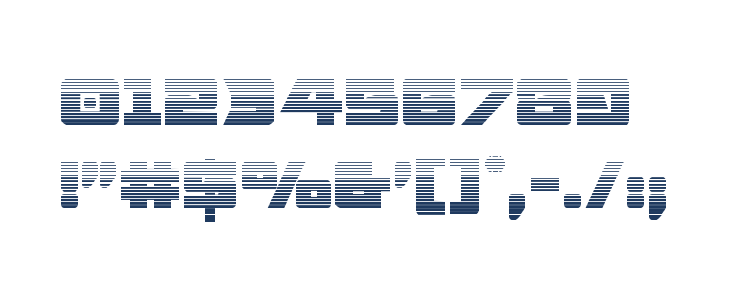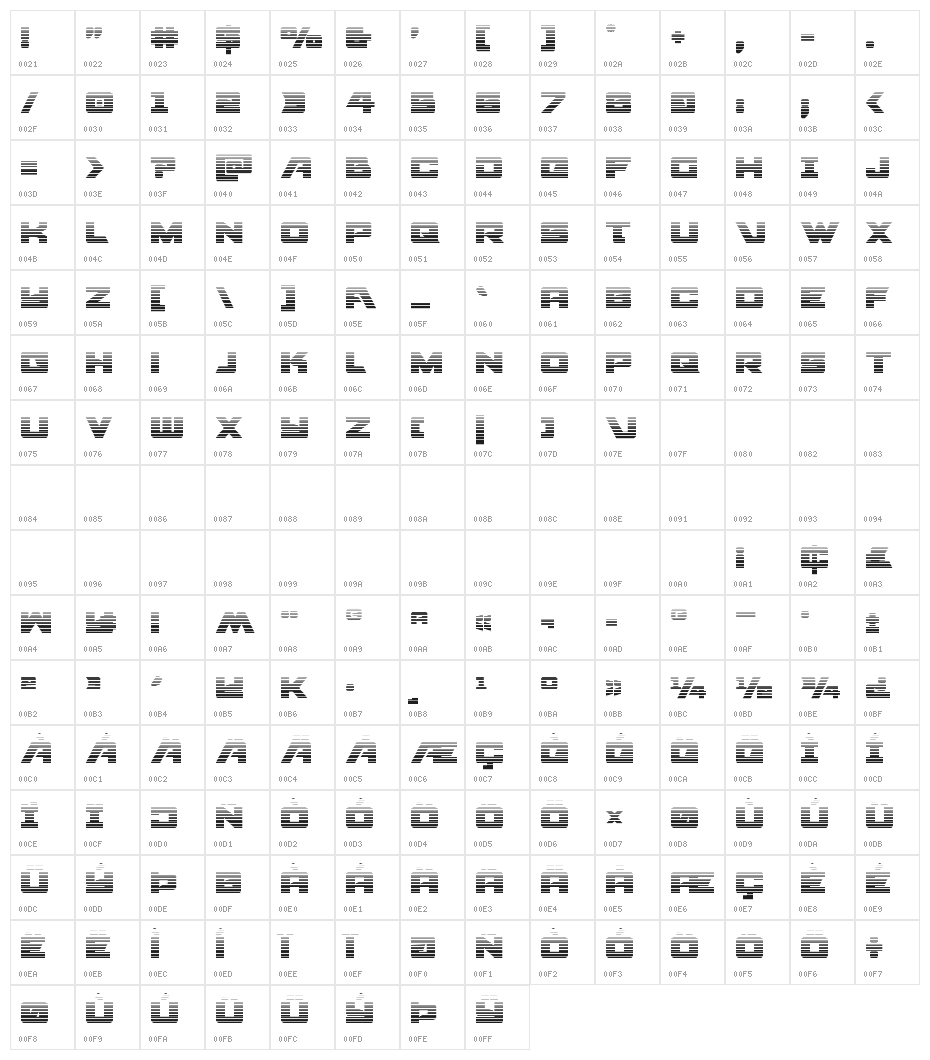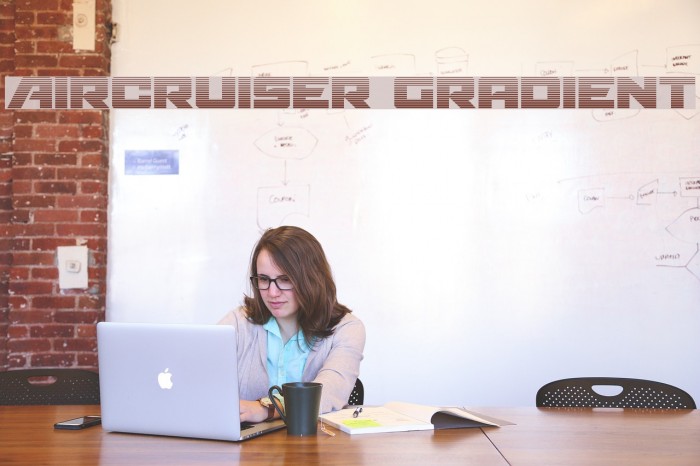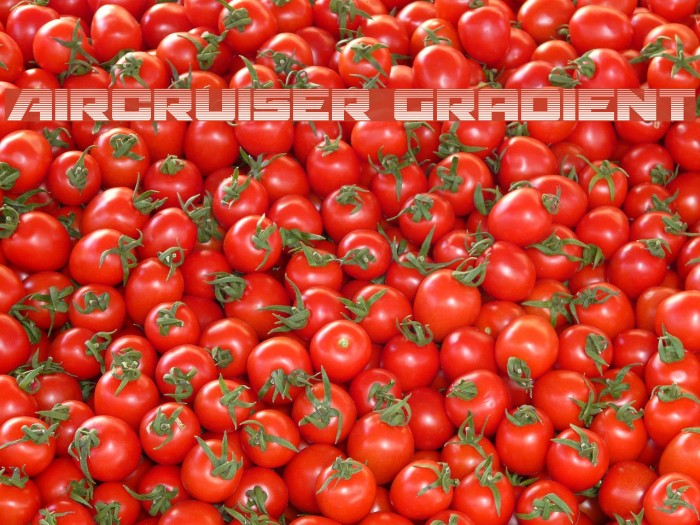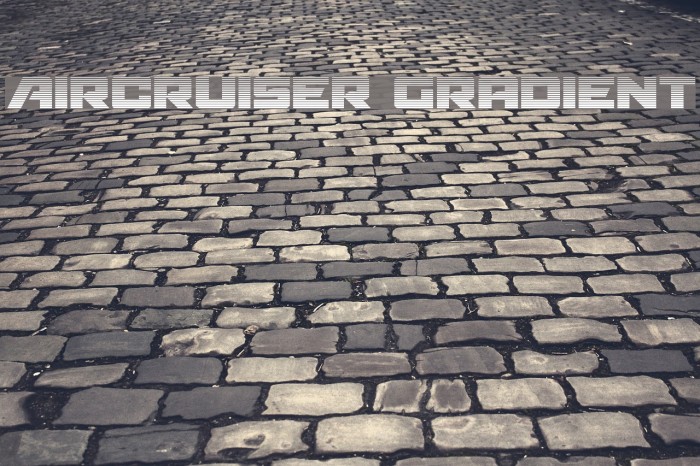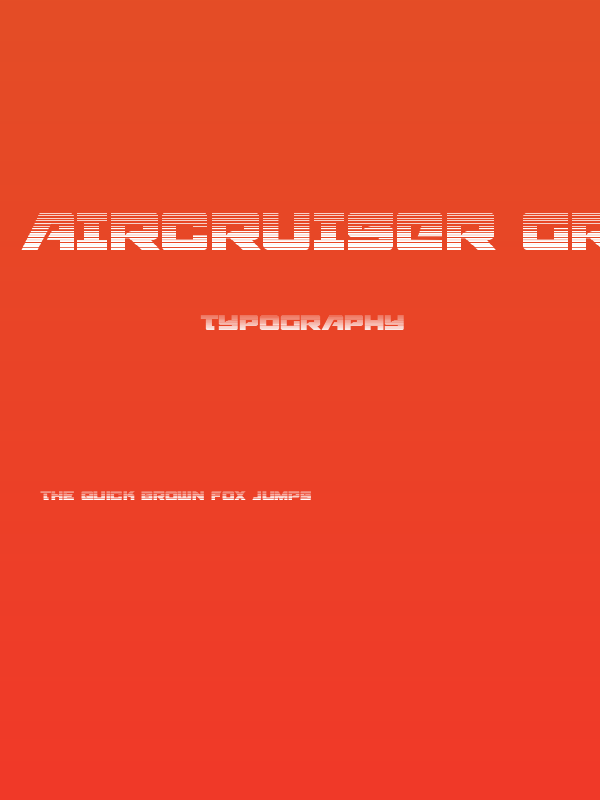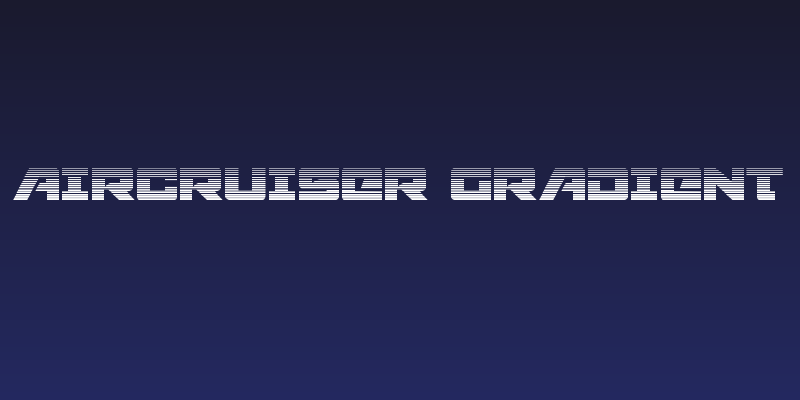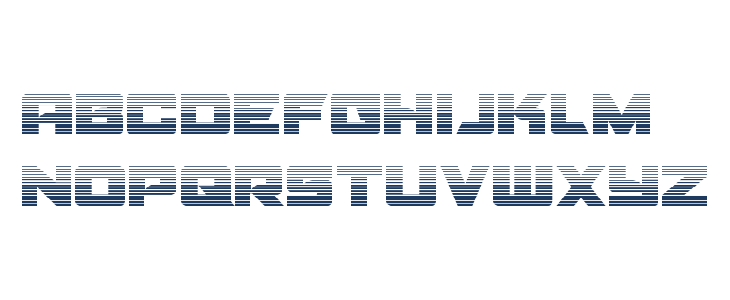
Aircruiser Gradient Font
Aircruiser Gradient Description
This font features a bold, futuristic design with a distinct gradient effect created by horizontal lines. Each character is constructed with a series of parallel lines that give it a dynamic, three-dimensional appearance. The uppercase and lowercase letters maintain a consistent style, emphasizing a modern and tech-inspired aesthetic. The numbers and special characters are designed to match the overall theme, ensuring uniformity across all glyphs. This font is ideal for projects that require a strong visual impact and a contemporary look.
| Proposed Projects | Ideal for technology branding, sci-fi movie posters, video game titles, and modern advertising campaigns. |